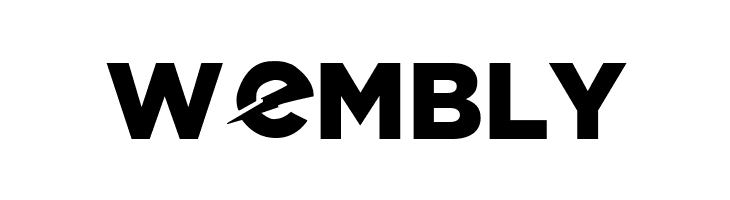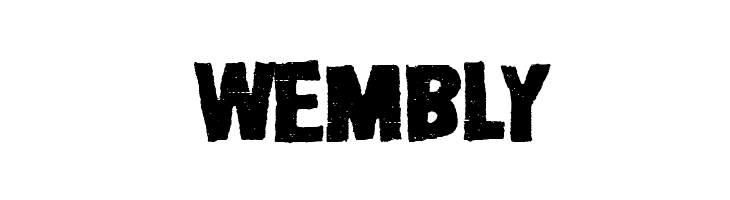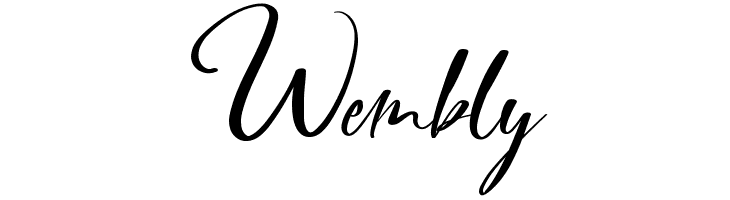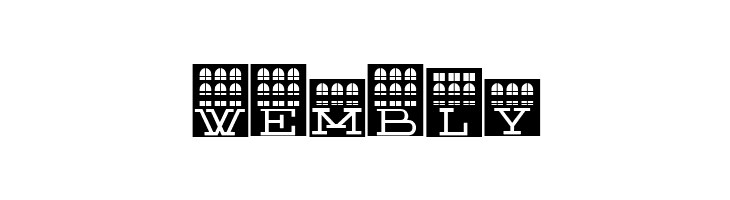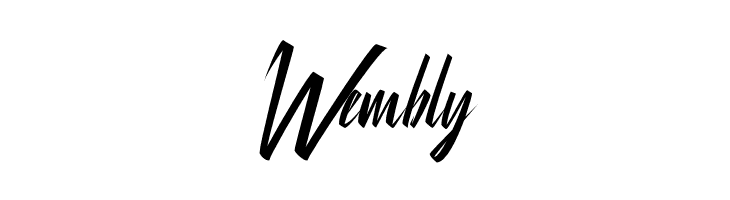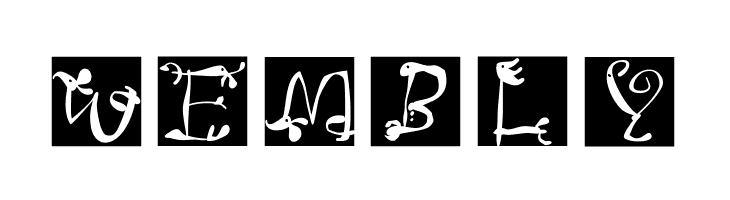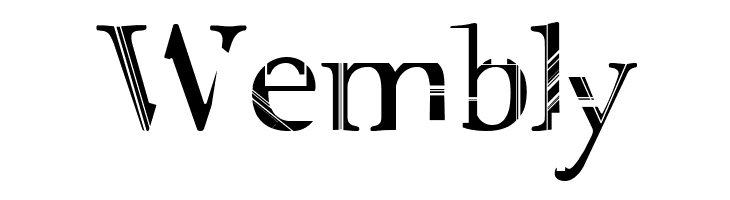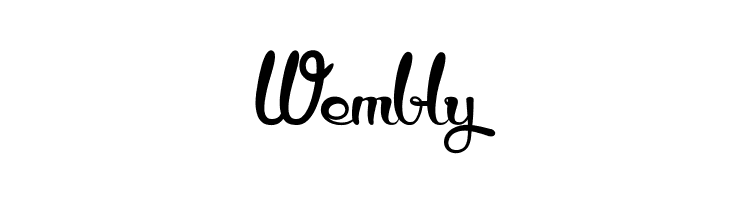
An elegant, flowing script font with graceful curves and decorative flourishes.
A decorative font with abstract, face-like characters formed by bold circular elements.
A playful, decorative typeface with characters designed as expressive circular faces.
An abstract, decorative font with swirling, circular motifs and bold strokes.
A modern, circuit-inspired font with geometric shapes and circular nodes.
A modern, geometric font with high contrast and circular elements.
A collection of abstract, circular symbols with bold, modern designs.
A modern, geometric font with characters enclosed in circles.
Circus-themed dingbat font with playful illustrations.
A whimsical, decorative font with playful, circus-inspired embellishments.
A bold, playful font with a vintage circus theme and decorative details.
A whimsical, decorative font with circus-inspired embellishments.
Circus-inspired dingbat font with lively illustrations.
A whimsical, decorative font with playful, circus-themed characters enclosed in squares.
A whimsical, bold font with decorative, circus-themed elements.
Cartoonish circus and clown illustrations form each character.
Circus-inspired display font featuring detailed silhouette illustrations.
A whimsical, circus-themed decorative font with playful, animated characters.
A whimsical, circus-themed font with characters in starburst shapes.
A playful handwritten font with tall, narrow letters and a whimsical style.
A dynamic and elegant script font with a modern, handwritten style.
A stylish and elegant script font with fluid, graceful strokes.
Urban-themed icon set with bold, clear pictograms.
A decorative font with characters styled as urban skyscrapers.
A playful, cursive font with bold, flowing strokes and elegant curves.
A playful and artistic script font with fluid, dynamic strokes.
A bold, distressed font with a rugged, vintage texture.
A bold, decorative font with star-like embellishments for a dazzling effect.
Energetic, bold script with brush-like strokes and a dynamic handwritten feel.